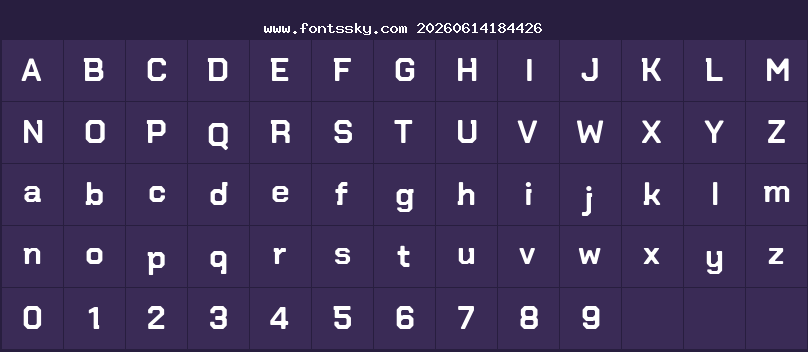
Arturito Slab Preview
• Font Name: Arturito Slab
• Designer: Cristian Tournier
About Arturito Slab.ttf
Arturito Slab.ttf is a modern, elegant sans-serif font designed for ultimate readability and visual harmony. Perfect for branding, headlines, web design, and print materials.